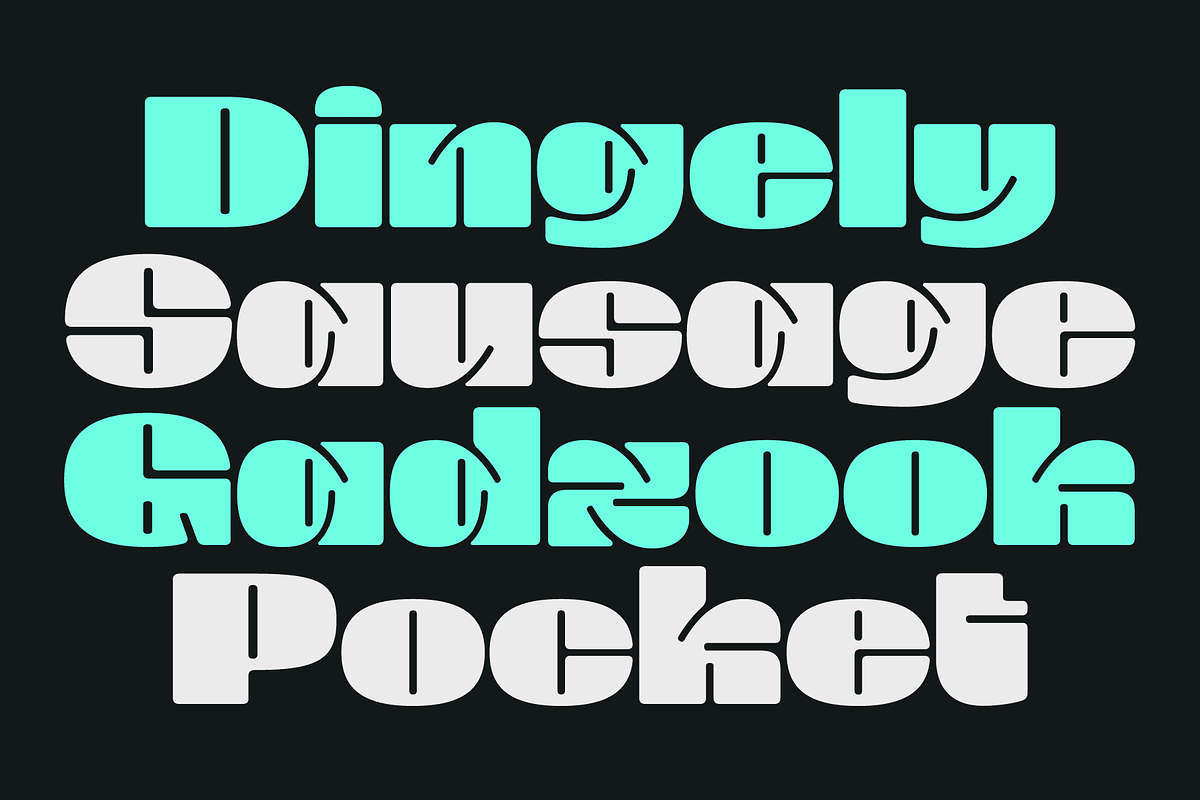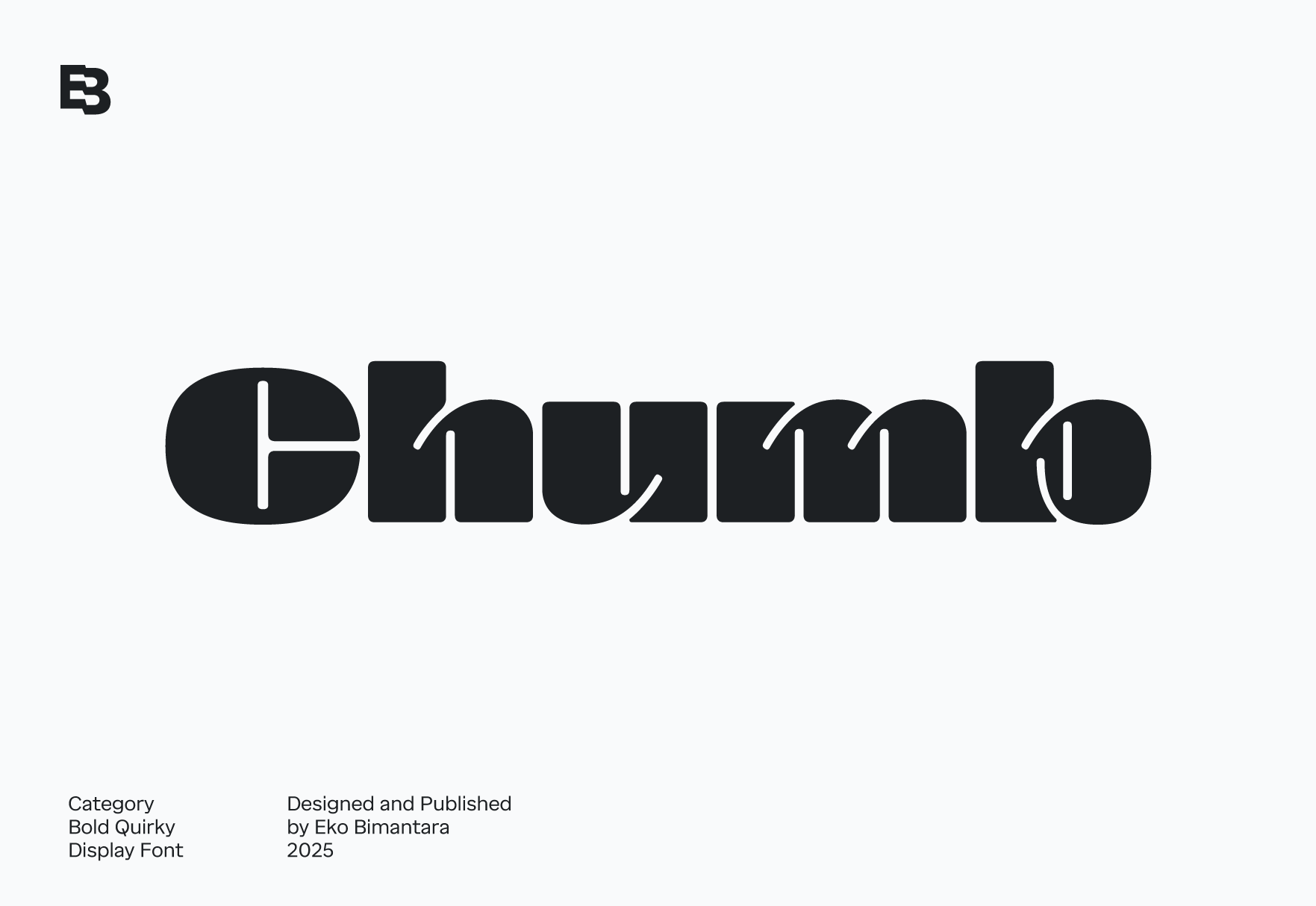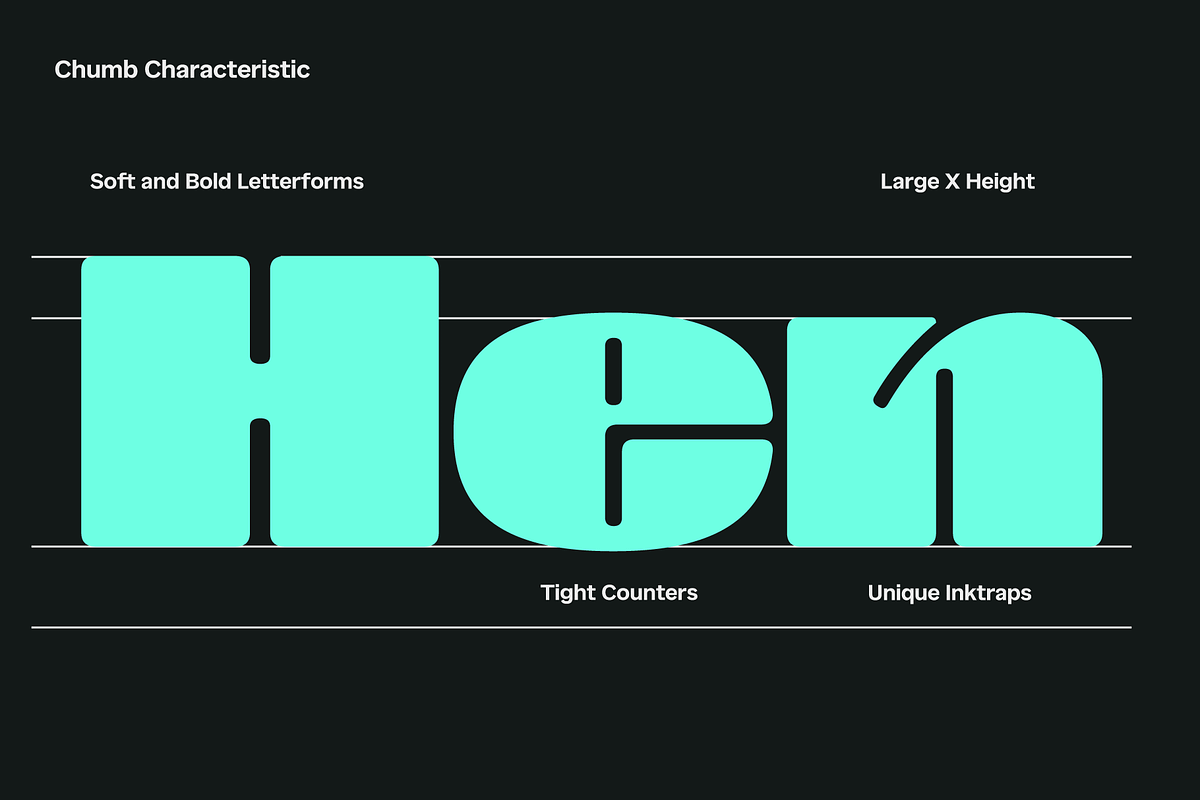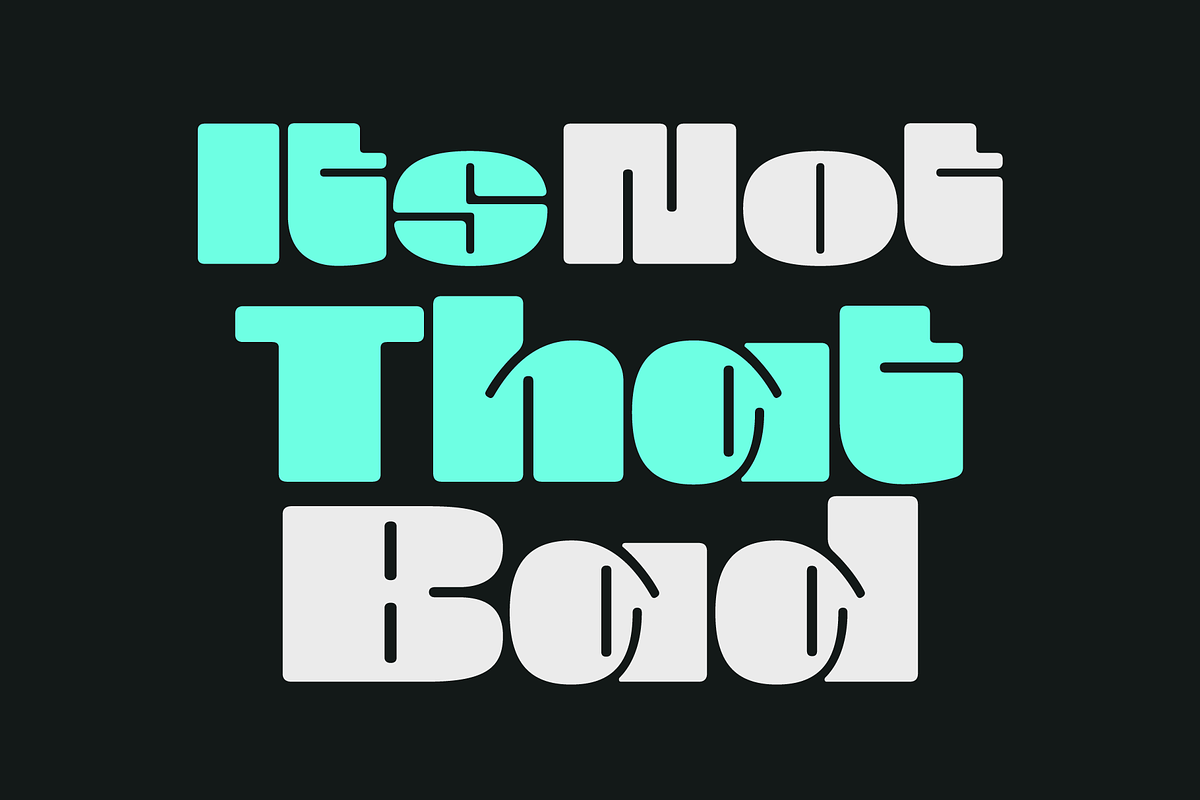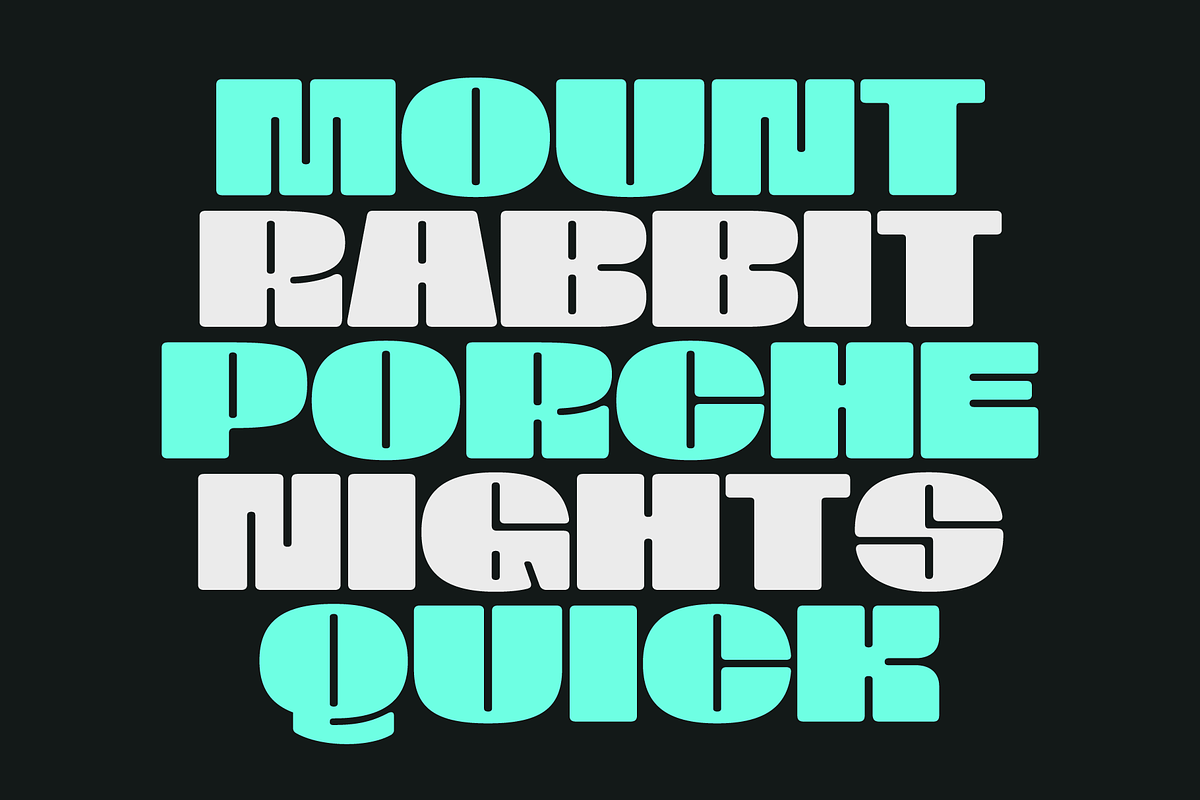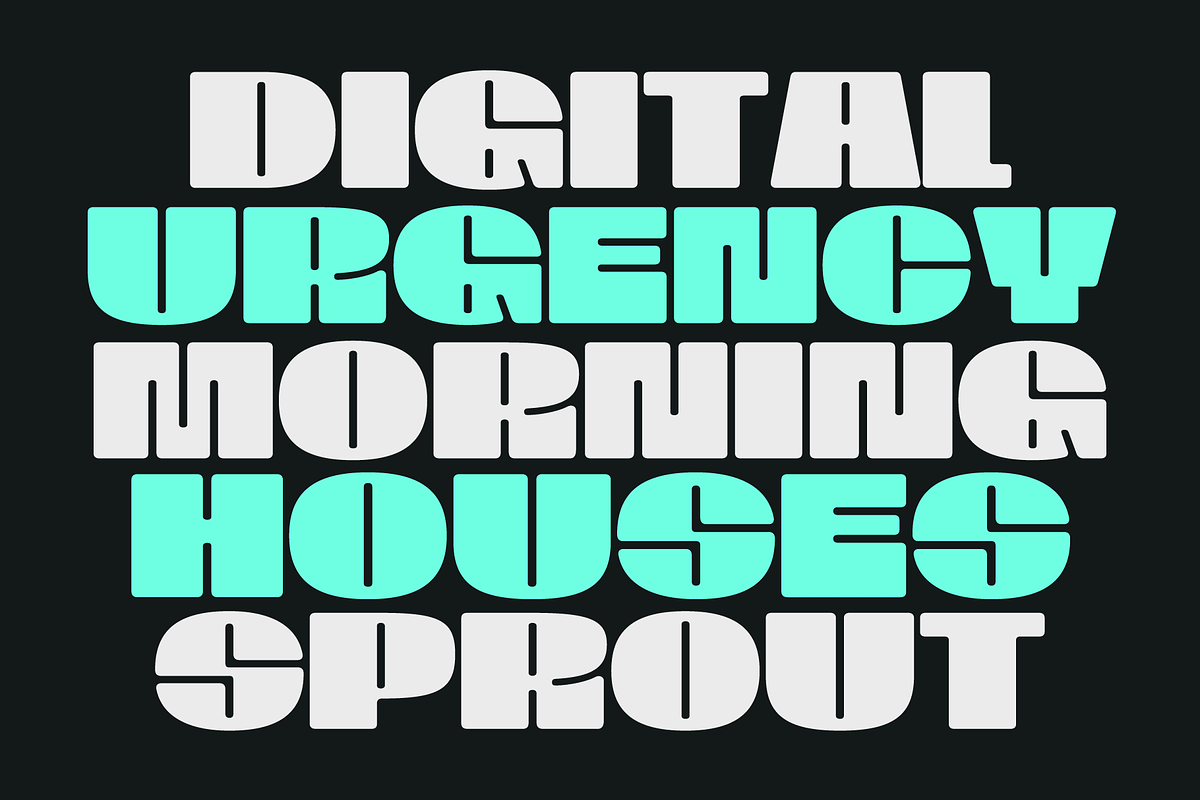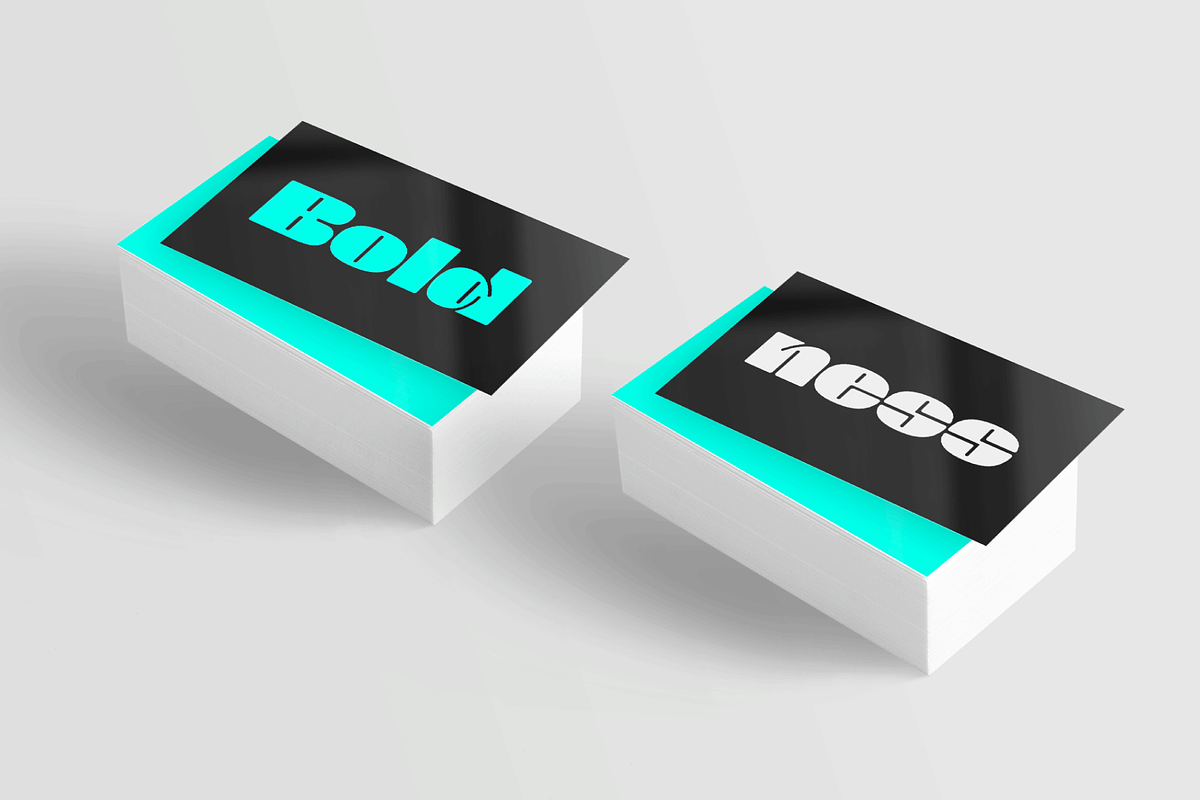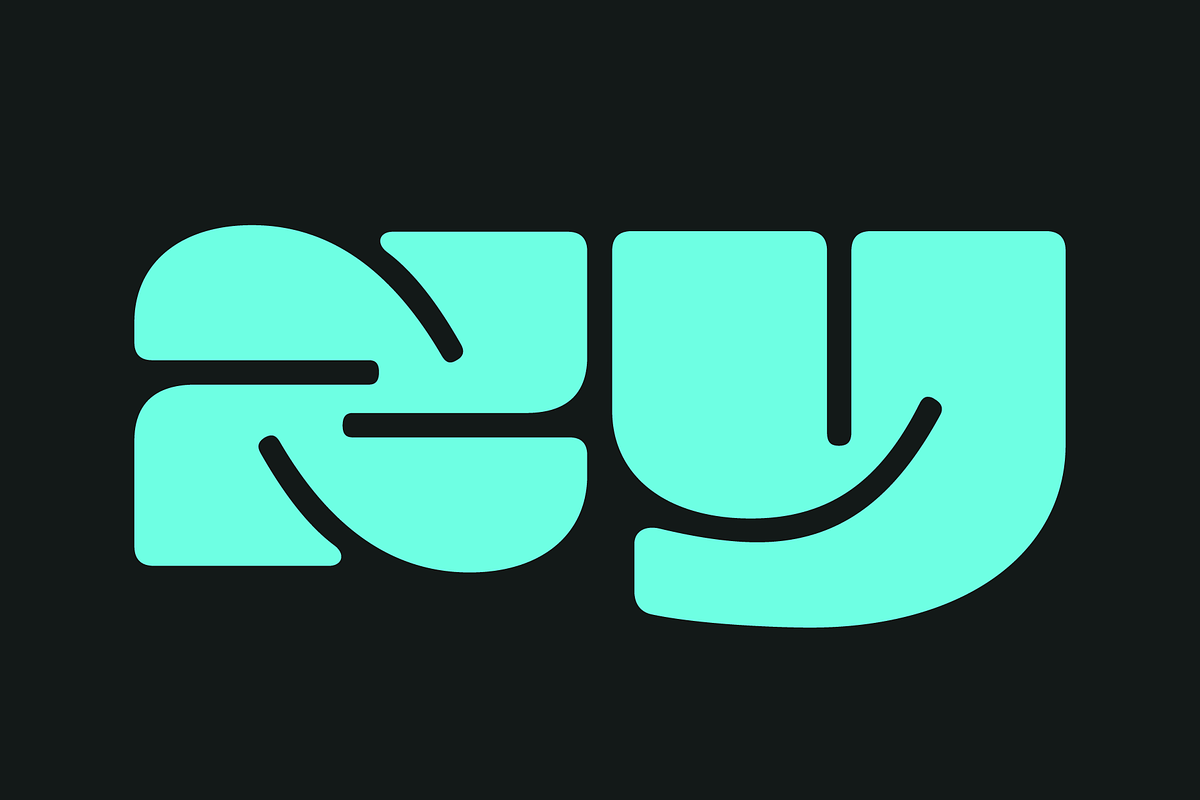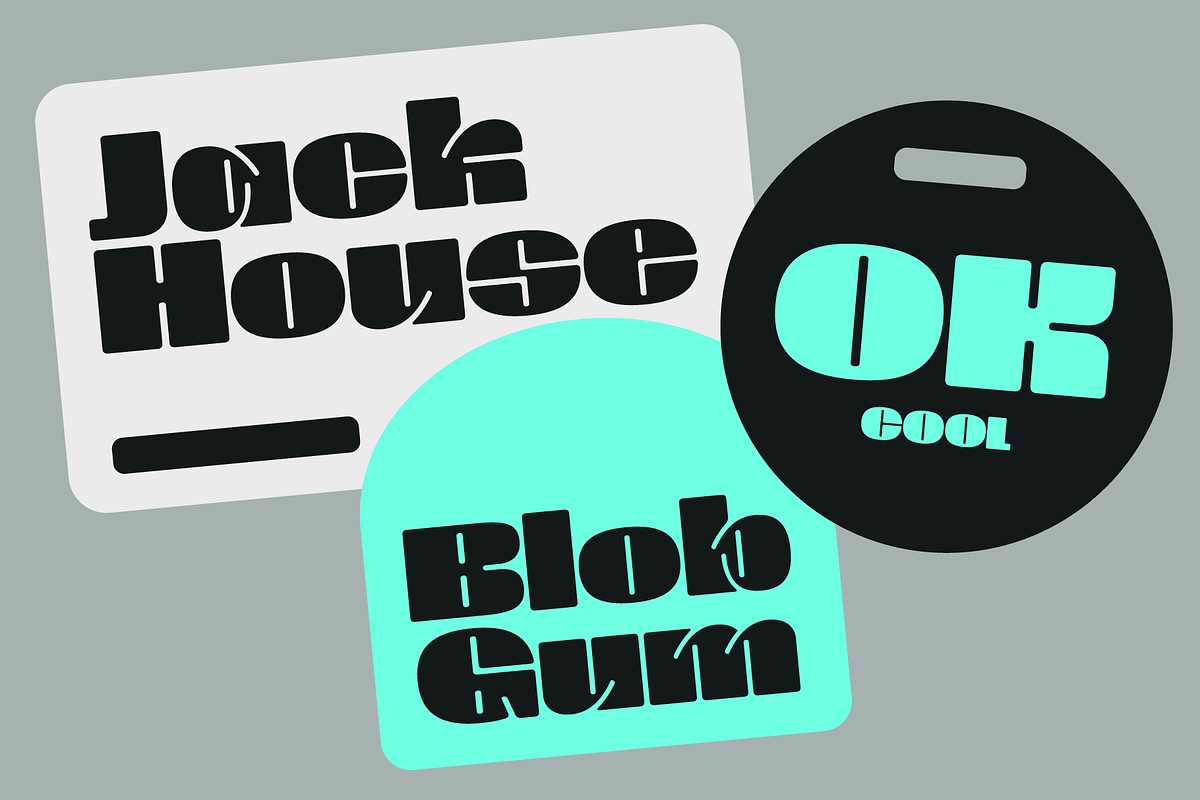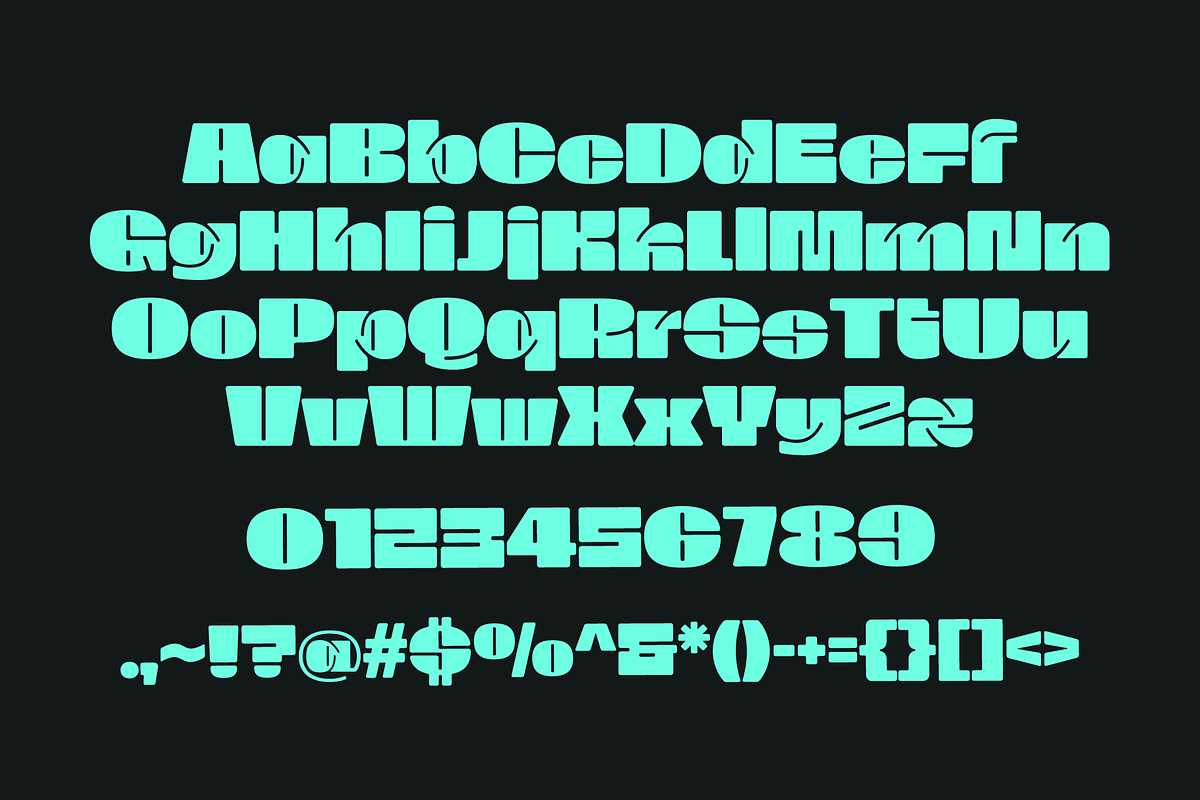
Chumb; Bold Quirky Display Font
Chumb is a bold and quirky display font with unique letterforms featuring tight counters, close spacing, and distinctive inktraps. Its striking design makes it perfect for contemporary and experimental themes, adding a bold touch to titles, product designs, and brand identities. Ideal for large displays, headers, websites, packaging, and various graphic design purposes, Chumb brings a creative and standout look to any project.